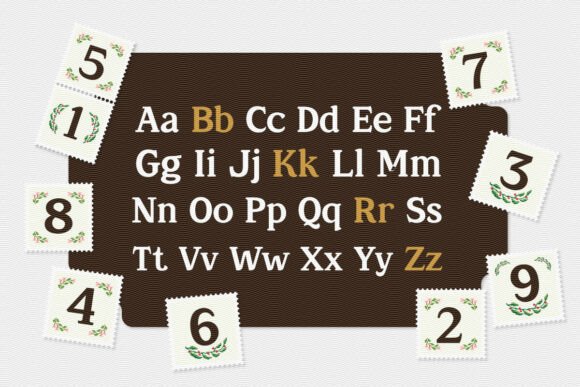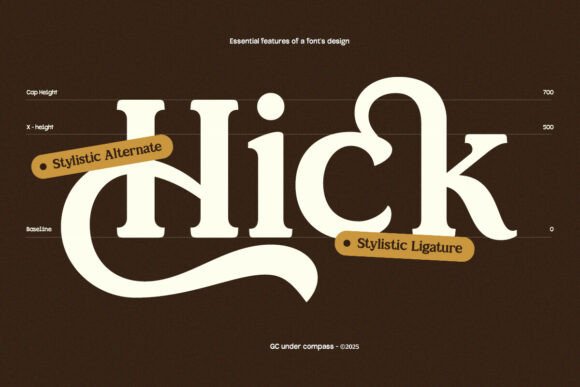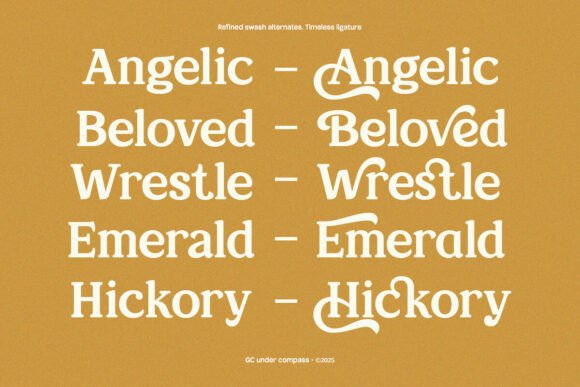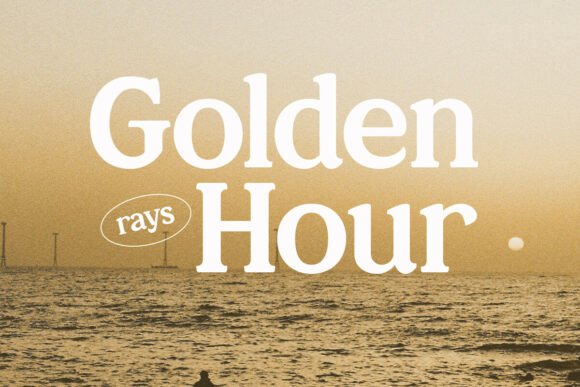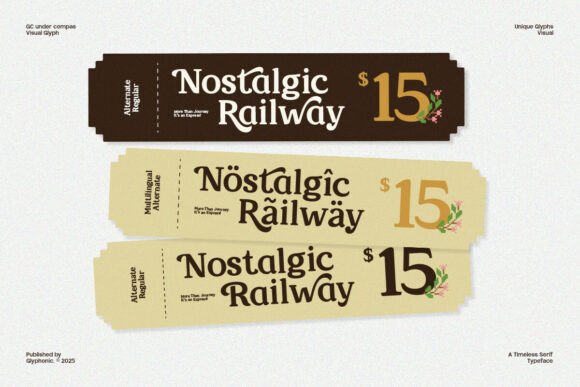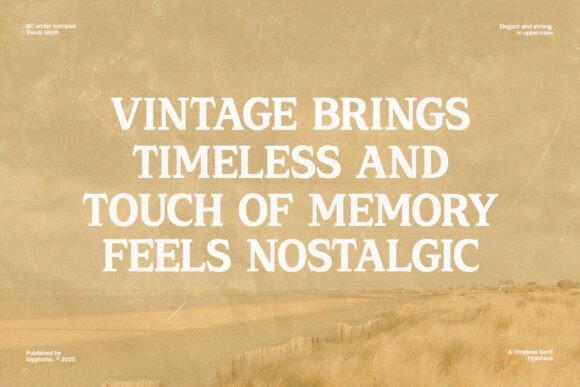
Discover the Timeless Elegance of GC Under Compass Font
In the world of typography, few fonts manage to strike a balance between classic sophistication and modern usability. GC Under Compass font is one such typeface that effortlessly merges traditional elegance with contemporary refinement. Inspired by the charm of classic letterforms, yet designed with the needs of modern design in mind, GC Under Compass offers a unique blend of warmth, sophistication, and character in every stroke.
A Font with a Rich Heritage
GC Under Compass is a serif typeface that draws inspiration from traditional letterforms, evoking a sense of nostalgia and timelessness. The font’s classic roots are evident in its harmonious proportions, subtle curves, and confident presence. However, what sets it apart is its modern twist, making it an ideal choice for designers seeking a versatile and refined typeface.
Ideal for Editorial and Heritage-Inspired Designs
GC Under Compass is particularly suited for editorial layouts, book titles, branding, and heritage-inspired designs. Its narrative quality makes it perfect for literary covers, elegant packaging, and storytelling visuals. The font’s ability to convey a sense of direction and purpose makes it an excellent choice for designers looking to add depth and charm to their typography.
Key Features of GC Under Compass Font
• Timeless Design: GC Under Compass boasts a classic serif design that exudes elegance and sophistication.
• Modern Usability: Despite its traditional roots, the font is designed with modern usability in mind, making it easy to read and versatile for various design applications.
• PUA Encoding: The font is PUA encoded, allowing effortless access to all glyphs, swashes, and alternate characters.
• Harmonious Proportions: The font’s proportions are carefully crafted to create a sense of balance and harmony.
• Subtle Curves: The subtle curves and strokes of the font add a touch of warmth and character to the typeface.
Why Choose GC Under Compass?
GC Under Compass offers a unique combination of classic elegance and modern refinement, making it an excellent choice for designers seeking a versatile and sophisticated typeface. Here are a few reasons why you should consider GC Under Compass for your next design project:
• Adds Depth and Character: The font’s classic design and modern usability make it an excellent choice for adding depth and character to your typography.
• Perfect for Storytelling: GC Under Compass’s narrative quality makes it perfect for storytelling visuals, literary covers, and editorial layouts.
• Elegant and Refined: The font’s elegant design and refined features make it an excellent choice for branding, packaging, and heritage-inspired designs.
GC Under Compass font is a timeless serif typeface that offers a unique blend of classic elegance and modern refinement. With its harmonious proportions, subtle curves, and confident presence, this font is perfect for designers seeking a versatile and sophisticated typeface. Whether you’re creating literary covers, elegant packaging, or storytelling visuals, GC Under Compass delivers a narrative quality that adds depth, charm, and a sense of direction to your typography. Make your design timeless, refined, and full of character with GC Under Compass.